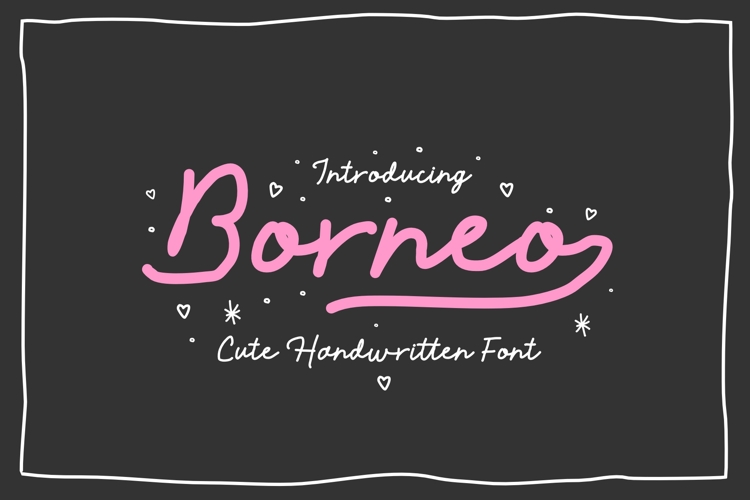
Borneo is an cute handwritten font with a simple, refined style, perfect for numerous design projects. Ideal for crafting, branding, invitations, stationery, wedding designs, social media posts, advertisements, product packaging, label design, posters, photography, and special events, this versatile font will add a touch to your creative work.
- numeric & Multilingual support
- Stylistic Alternates with Ss01 & Ss02